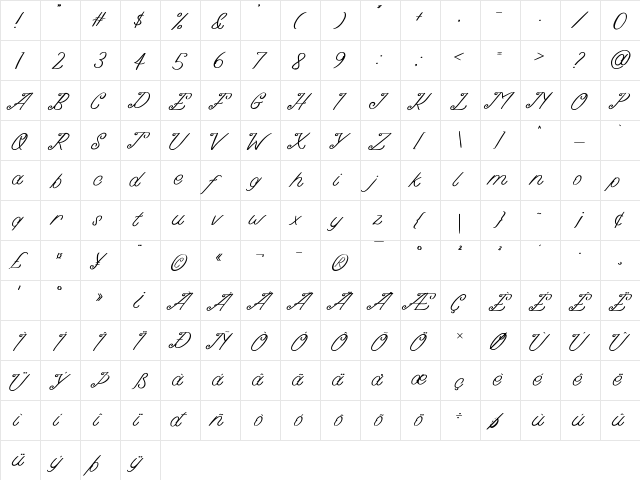
Bridge of Astania Regular Font Preview
Bridge of Astania Regular
Bridge of Astania Regular Font Details
Design Context for Bridge of Astania Typeface
Bridge of Astania is a composed and adaptable typeface that performs quietly and consistently across a wide range of design contexts.